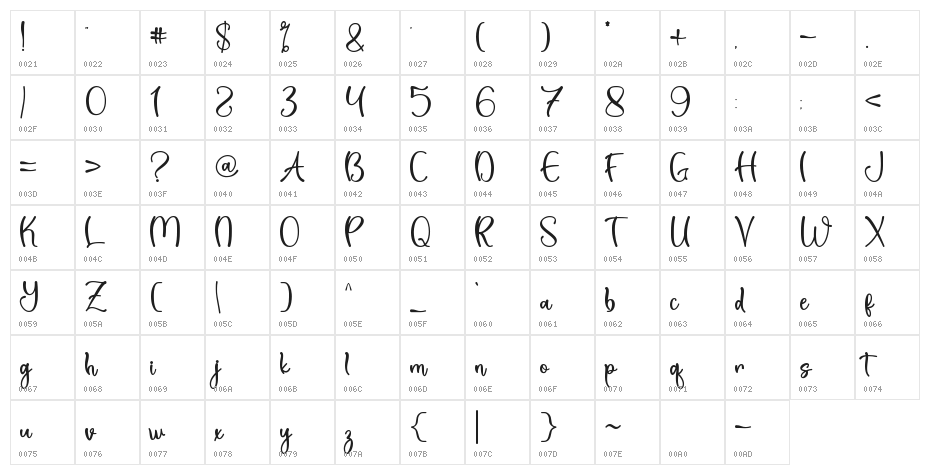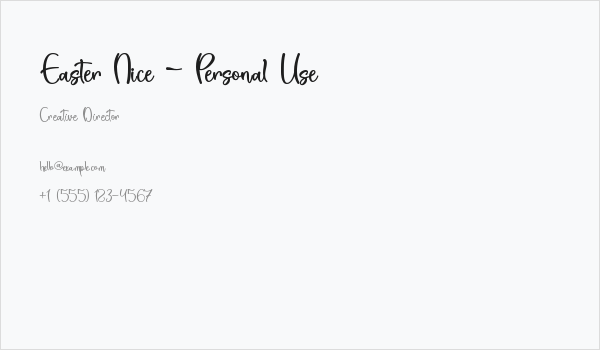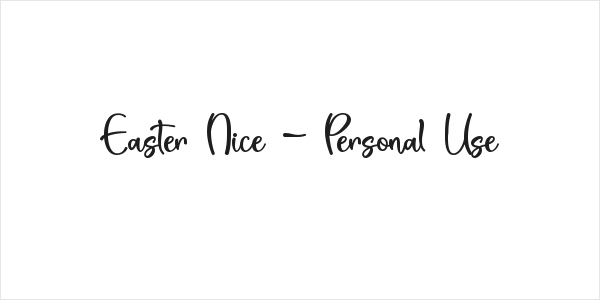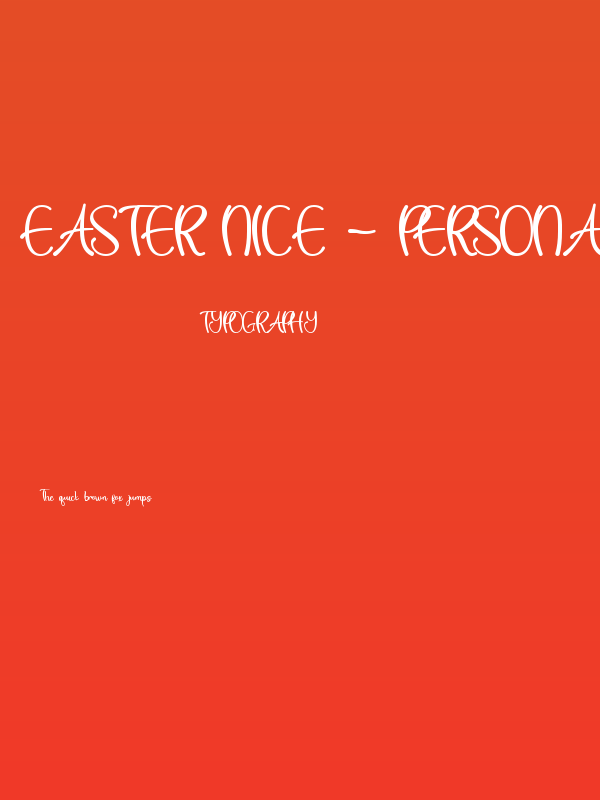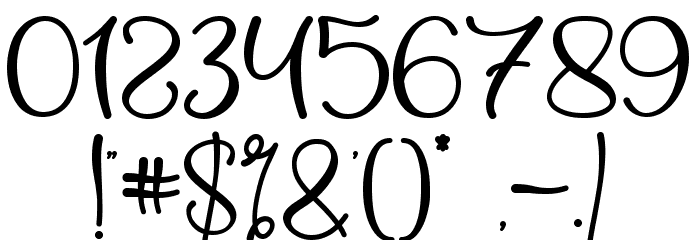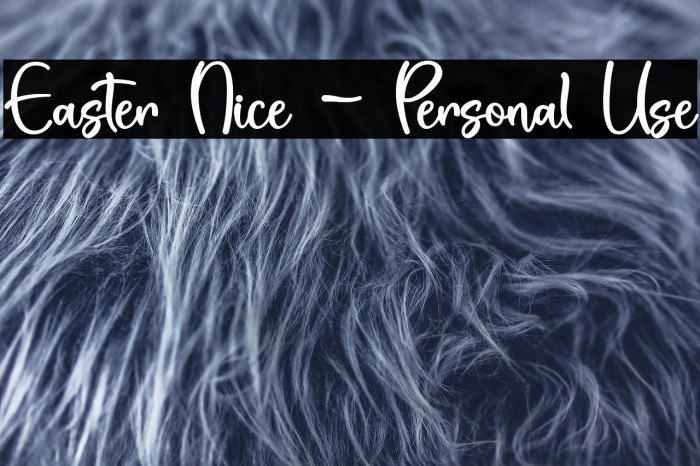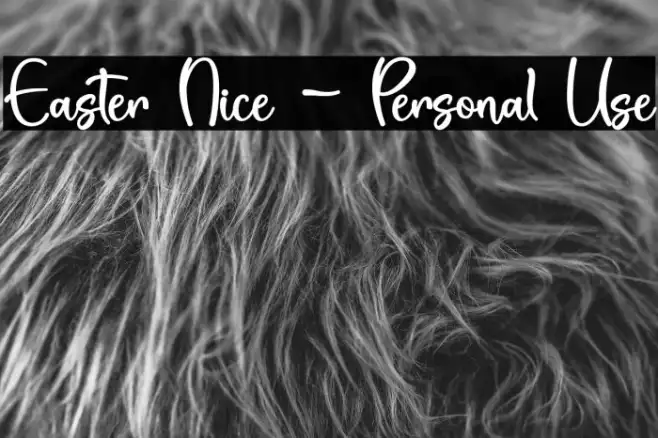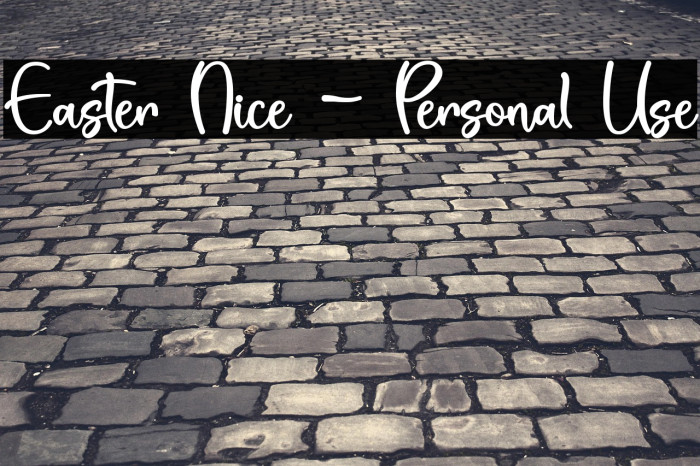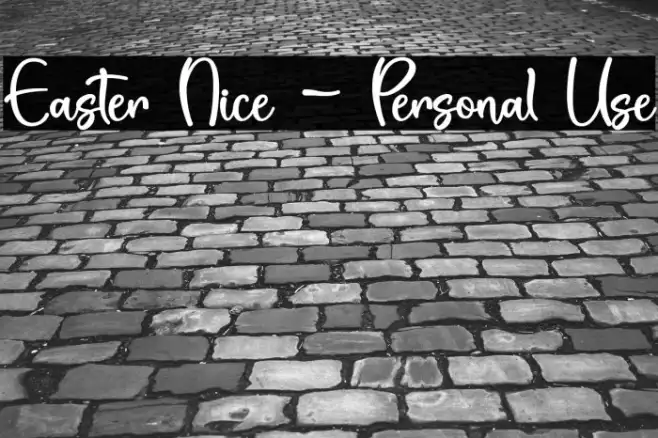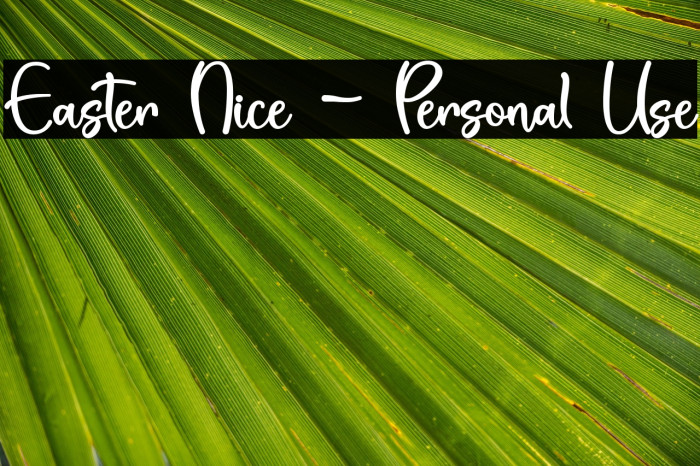
Easter Nice - Personal Use Font
Easter Nice - Personal Use Description
This font features a playful and whimsical style with a handwritten appearance. The uppercase letters are tall and slightly narrow, with a flowing, cursive-like quality that adds a sense of movement and energy. The lowercase letters maintain this playful aesthetic, with rounded forms and occasional loops that enhance the handwritten feel. The numerals are bold and consistent with the overall style, providing clear readability. Special characters are creatively designed, maintaining the font's lively and informal tone. This font is perfect for projects that require a personal touch or a fun, casual vibe.
| Use Case | Headlines, Invitations, Creative projects |
| Proposed Projects | Ideal for greeting cards, invitations, playful branding, children's books, and creative posters. |